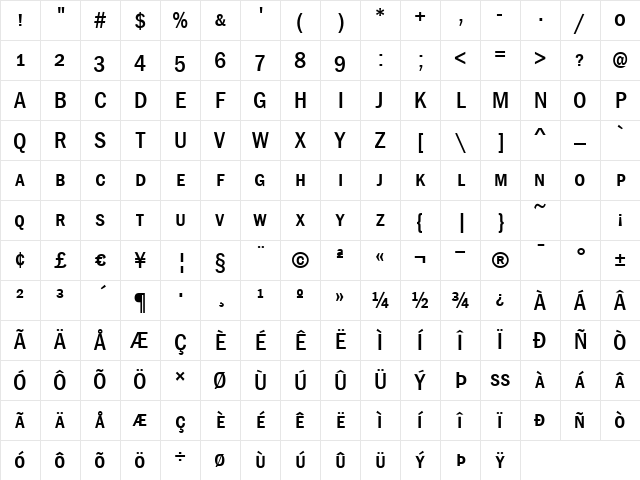
FranklinGothicCondSmc Bold
Complete FranklinGothicCondSmc Bold glyph index. Displaying only characters natively supported by FranklinGothicCondSmc Bold font.
Design Context for FranklinGothicCondSmc
FranklinGothicCondSmc takes a clean, functional approach - its unadorned letterforms prioritise legibility and work reliably across screen and print environments. Its bold stroke weight gives it real presence on the page. Its narrow stance lets it pack a punch even in space-constrained designs.
Font Pairing: Use FranklinGothicCondSmc for headlines alongside a lighter-weight sans or serif for body copy to establish clear visual hierarchy.
Pro Tip: Use FranklinGothicCondSmc tightly set in headlines and banners - its condensed proportions make it ideal for maximum impact in minimum horizontal space.